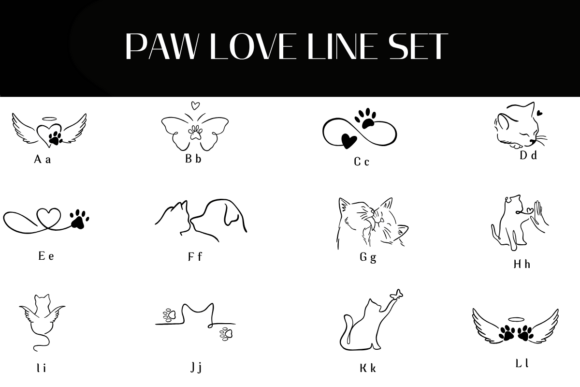
Paw Love Line Set Font
🐾 Paw Love Line Set Dingbats Font
Express your unconditional love for pets with the Paw Love Line Set, a collection of heartwarming and elegantly crafted line-art dingbats featuring cats, dogs, and symbolic paw prints.
This font offers a versatile array of single-line illustrations, from charming continuous line drawings of pet faces and cuddles to powerful symbols like paw-print hearts, winged paw prints, and a dog’s best friend handshake, all accessible with a simple keystroke.
The clean, minimalist stroke makes it absolutely ideal for creating custom temporary tattoos, vet branding, pet memorial items, t-shirt design, or simply adding a sweet, personalized flourish to any animal-themed craft or gift.